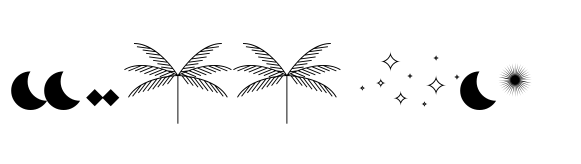
Qrada
by Hishand Studio
The Qrada Font Family was designed by Putu Dody Permana and published by Hishand Studio. Qrada contains 3 styles and family package options. More about this family
Introducing Qrada classy modern serif font family that drawn inspiration from elegant, modern, and classic at the same time. It looks lovely on wedding invitations, thank you cards, quotes, greeting cards, logos, business cards and every other design which needs a customized touch.
Complete with
• ligatures
• alternates
• regular
• italic
• icon
• kerning
• multilingual support
Designers: Putu Dody Permana
Foundry: Hishand Studio